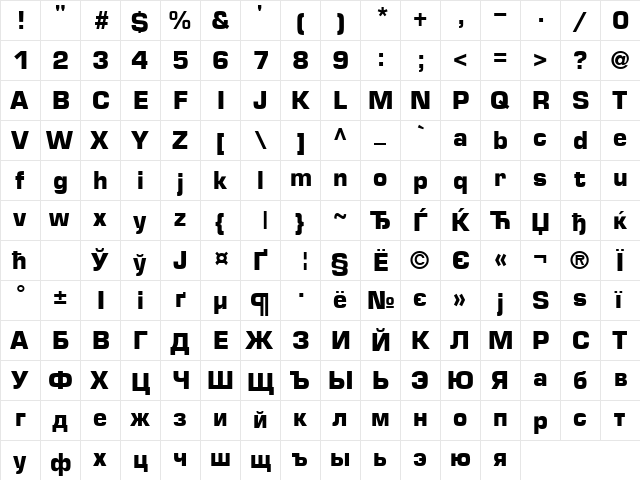
Europe Bold
Design Context for Europe Typeface
Europe offers clean, dependable letterforms without strong stylistic allegiance, making it a practical choice for designers who need flexibility. Its bold stroke weight gives it real presence on the page.